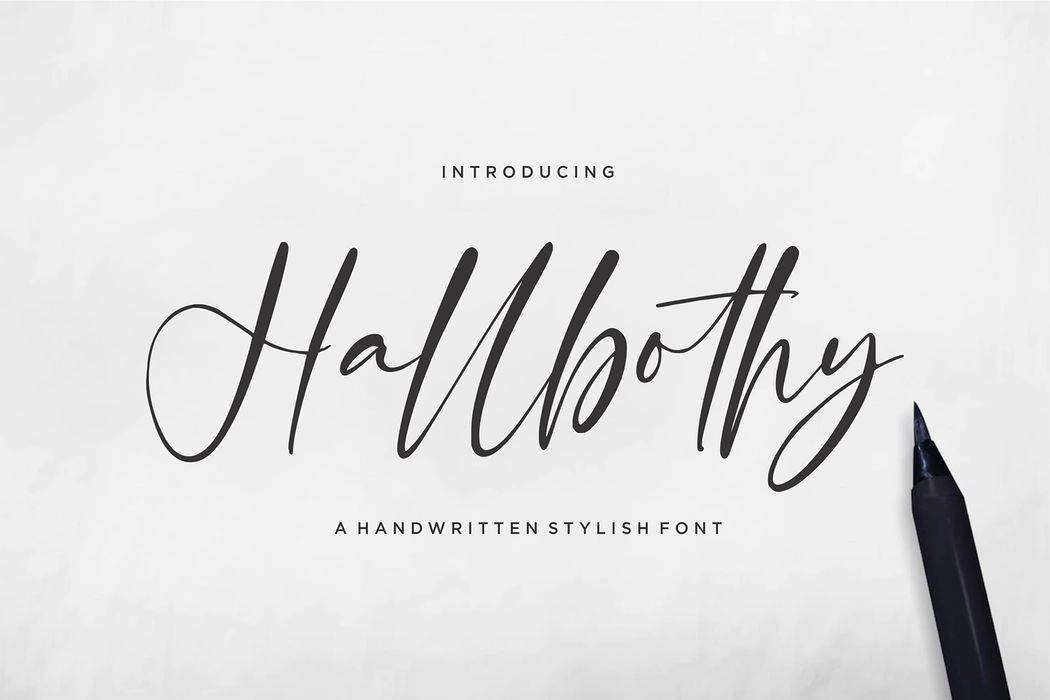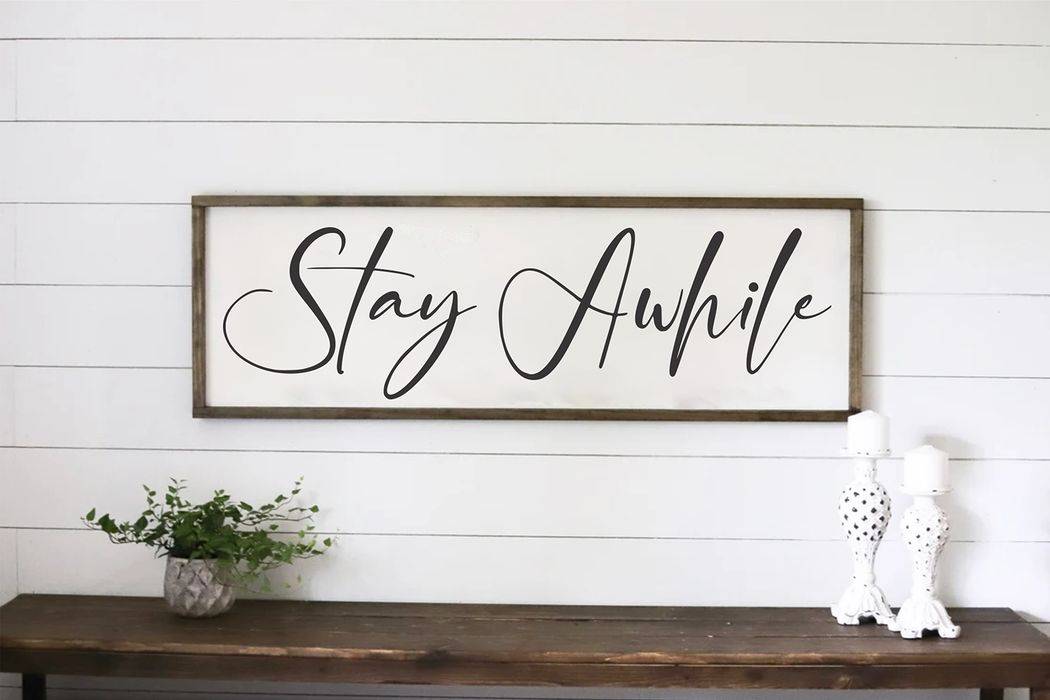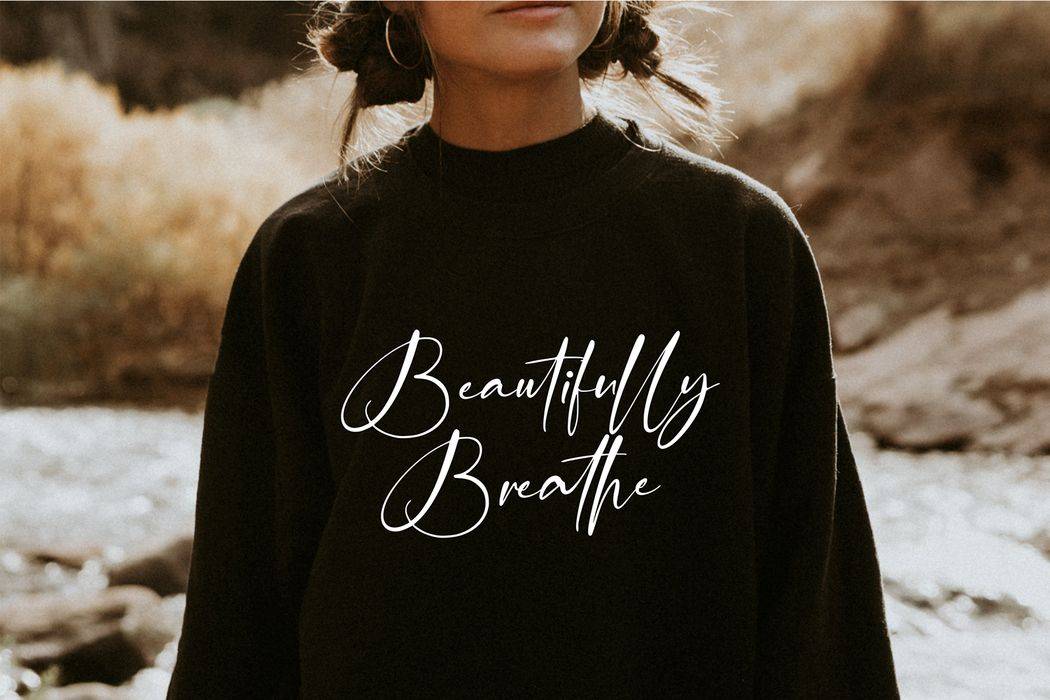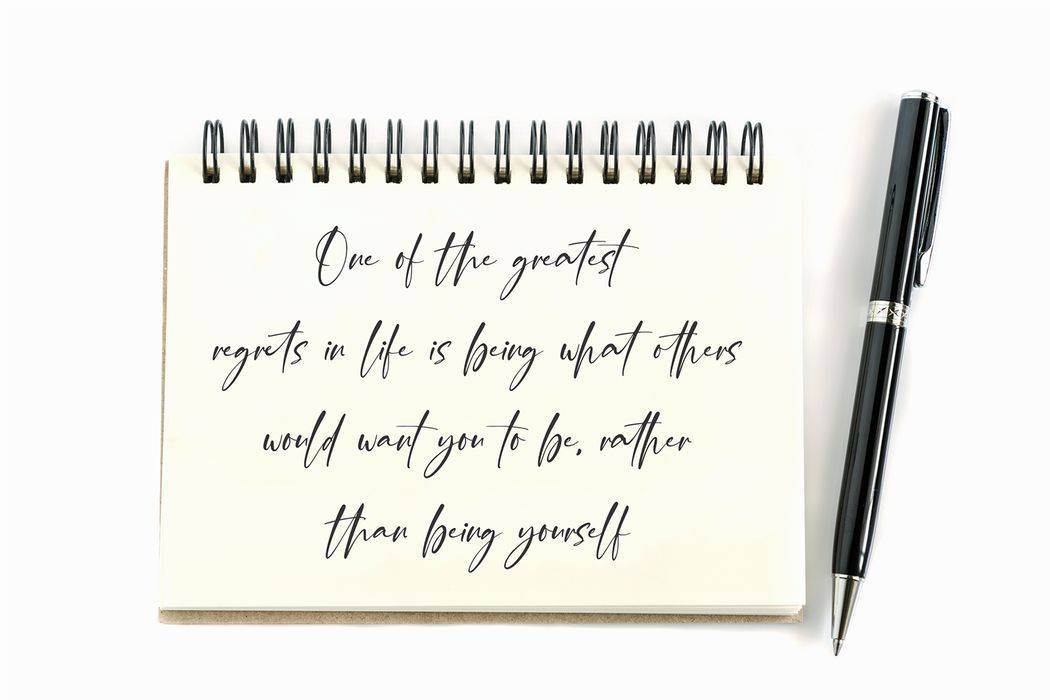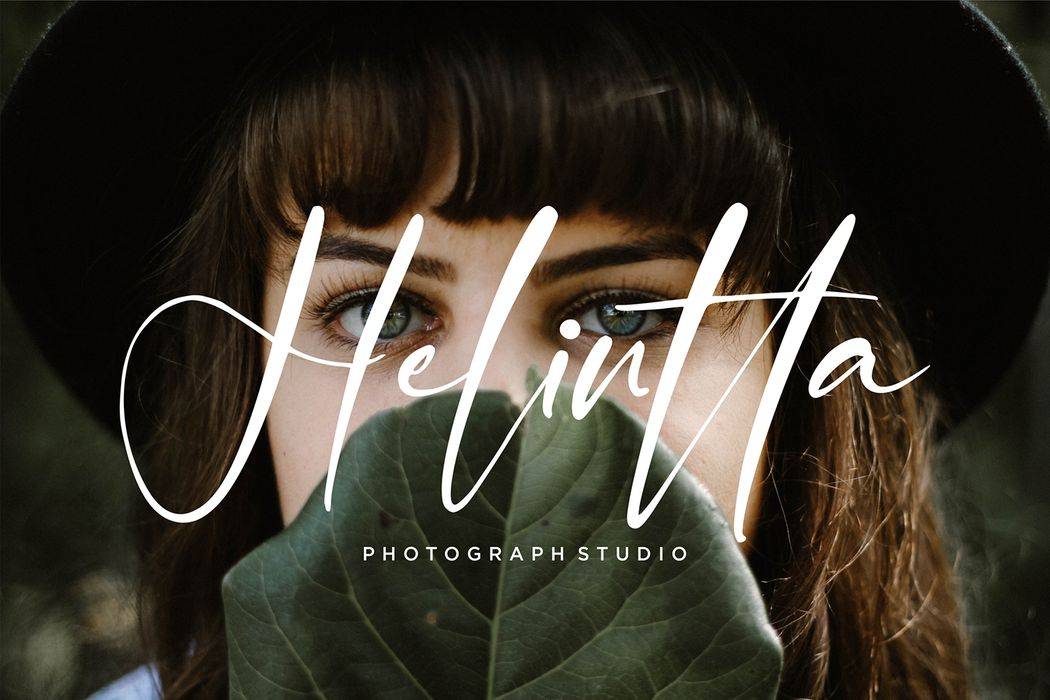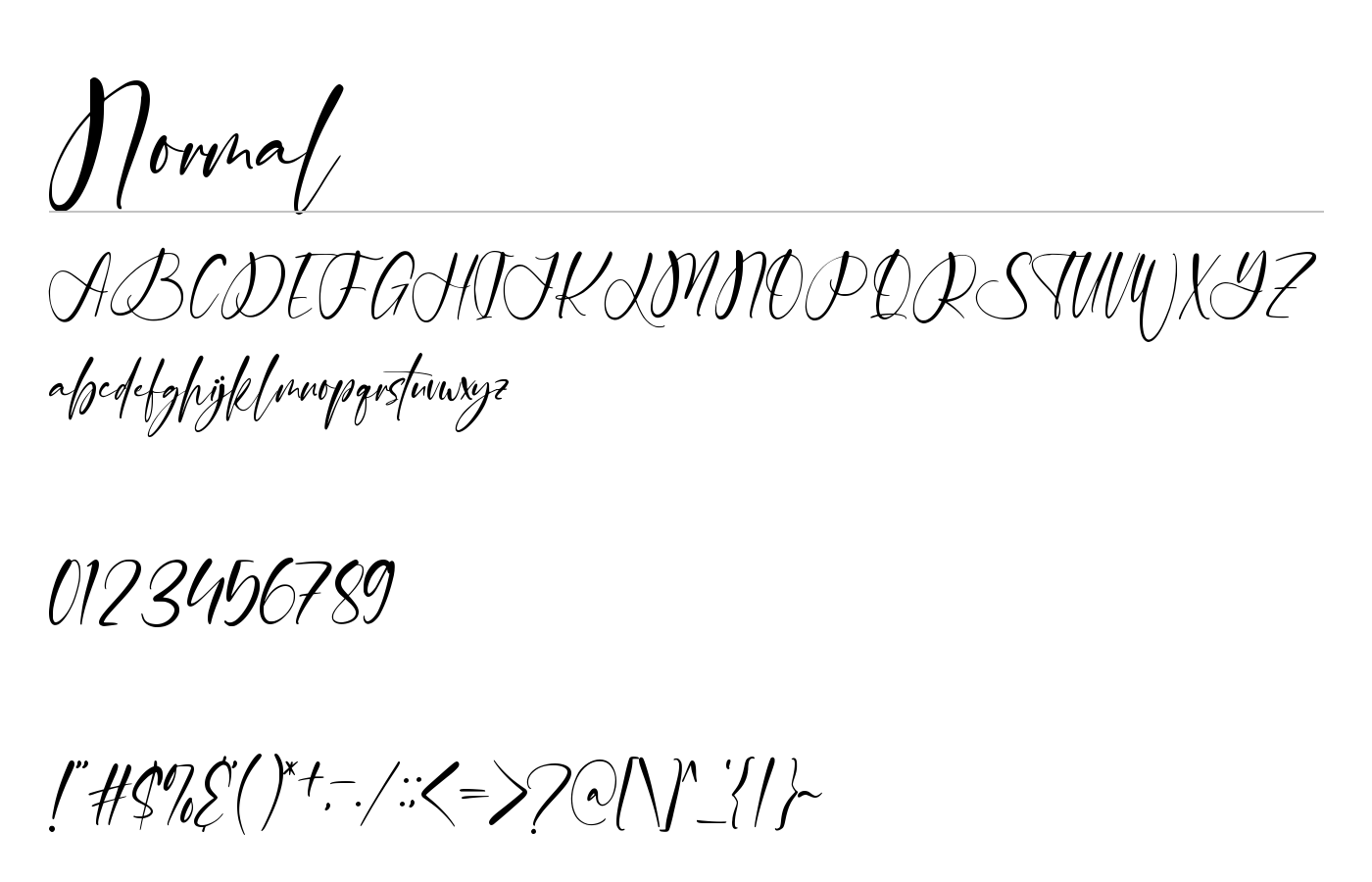
Hallbothy is an elegant script font featuring graceful, flowing strokes with a slender, hand-lettered feel. Its high contrast and delicate lines give it a sophisticated and artistic personality, making it ideal for luxury branding, wedding invitations, and stylish editorial designs. This font's refined charm works beautifully in headlines and logos where a personal, upscale touch is desired.
Hallbothy Font
About Hallbothy Font
| Font family | Hallbothy Font |
| Designer | Qwrtype Foundy |